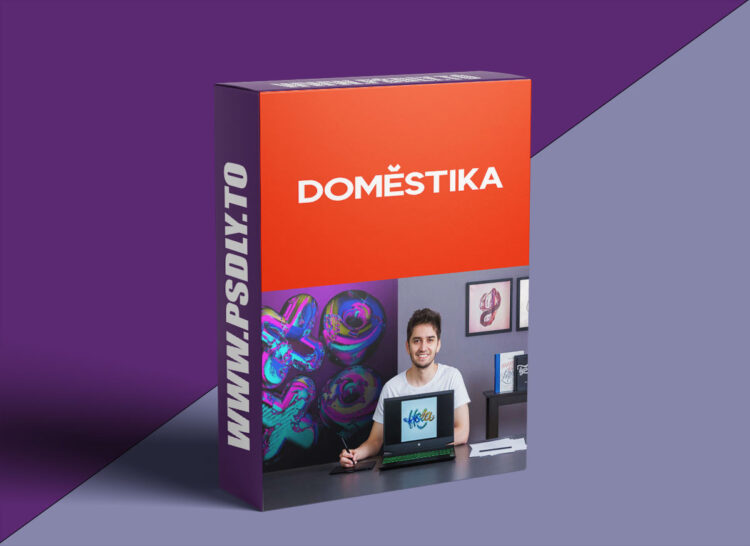
Domestika – 3D Font Design with a Metallic Finish
• Learn three-dimensional modeling techniques in Cinema 4D to add a realistic and vibrant touch to your lettering
• Colors and finishes have enormous power to tell stories. In this online course, expert typography designer Dawlym Jaramillo will teach you how to give life and character to your letterings through Cinema 4D.
• Throughout the units, you will learn how to design three-dimensional letters with metallic finishes. You will create three compositions with different modeling styles and discover all the tricks to achieve shiny and realistic lettering.